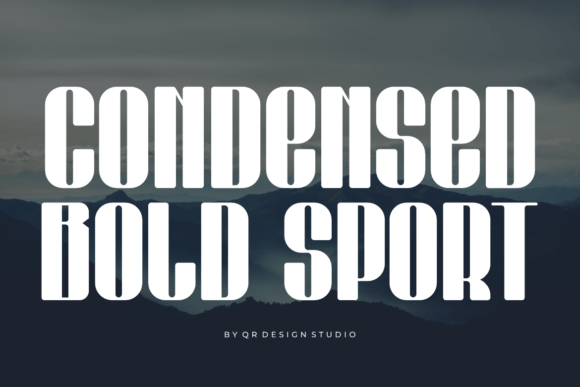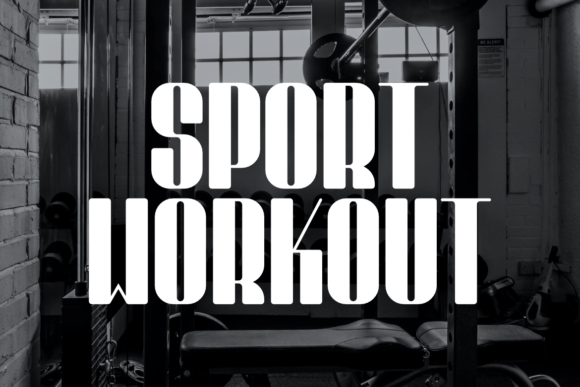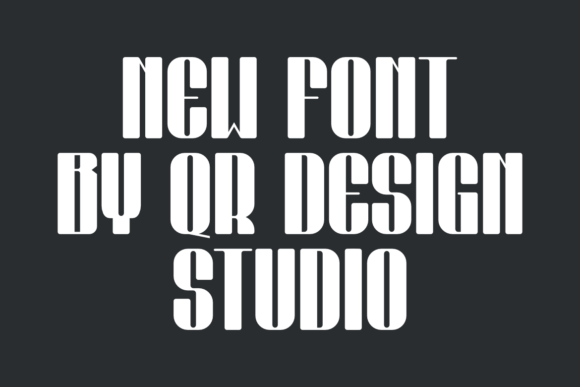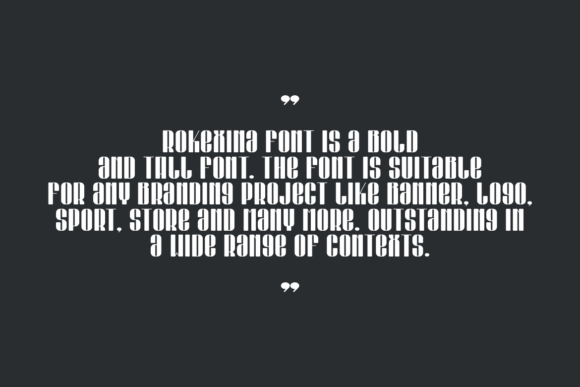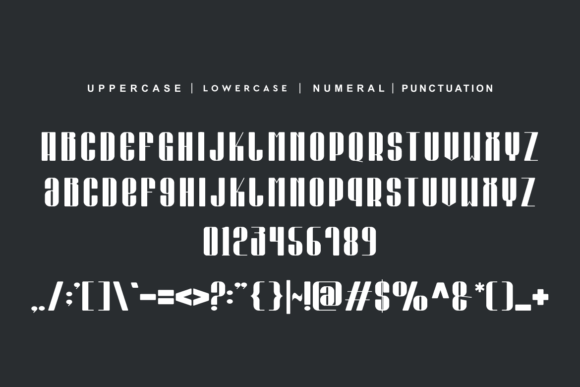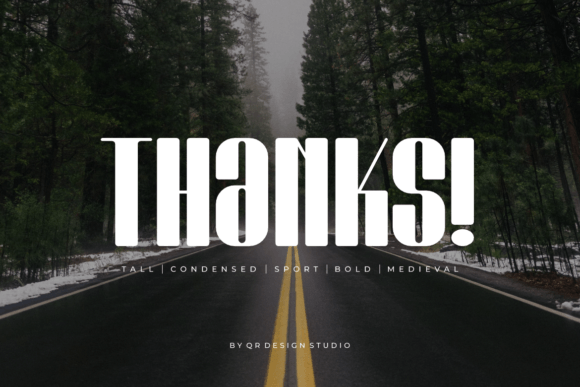
Introduction to Rokexina Font
Rokexina is a bold and authentic display font.
The font is suitable for any branding project like logo, sport, and many more Outstanding in a wide range of contexts.
Key Features of Rokexina Font
Why Choose Rokexina Font?